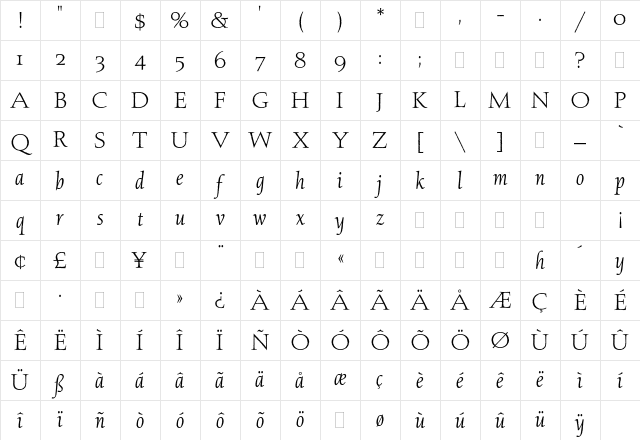
Aquinas Plain
Design Context for Aquinas
Aquinas is a composed and adaptable typeface that performs quietly and consistently across a wide range of design contexts.